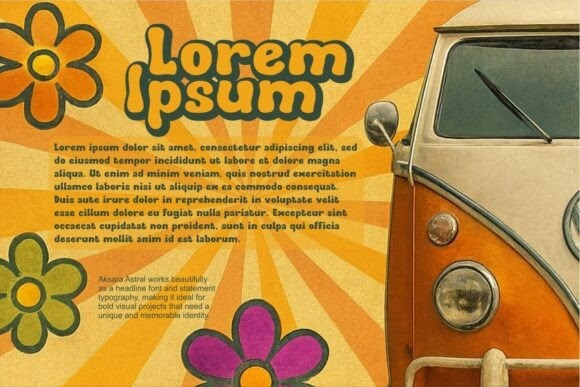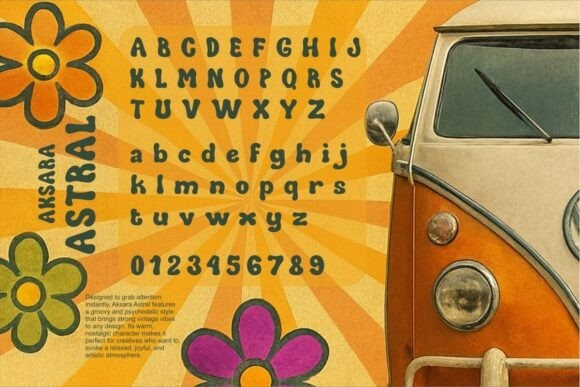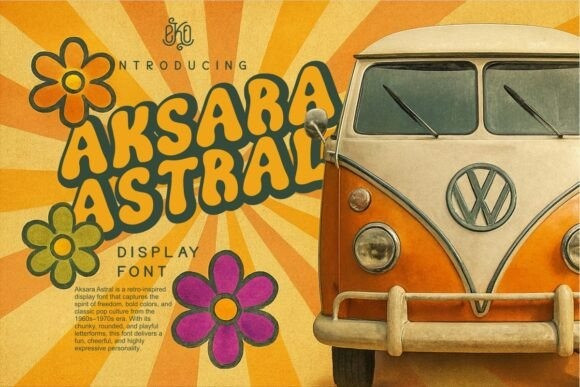
Aksara Astral Font
Aksara Astral Font brings back the cool vibes of the 70s with its retro font style. This font exudes a groovy, nostalgic feel, perfect for giving your project a touch of that disco-era flair. With its funky shapes and vintage charm, Aksara Astral adds a playful and retro vibe to any text, making it a fun choice for posters, headlines, or anything that calls for a blast from the past. Get ready to groove with Aksara Astral and infuse your design with some 70s magic!